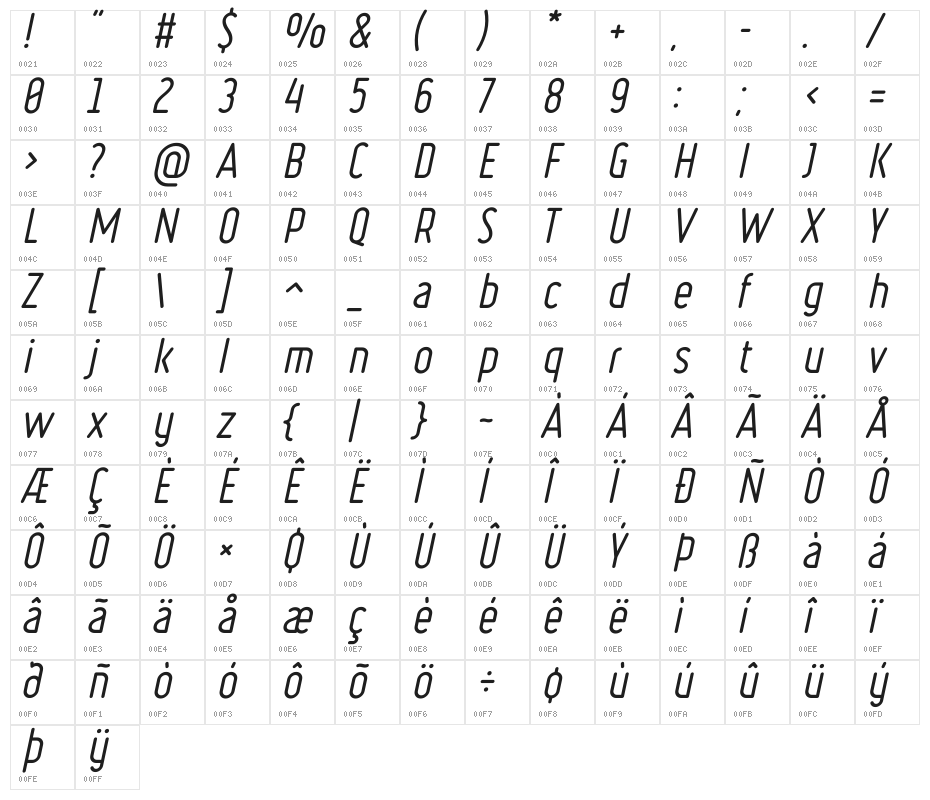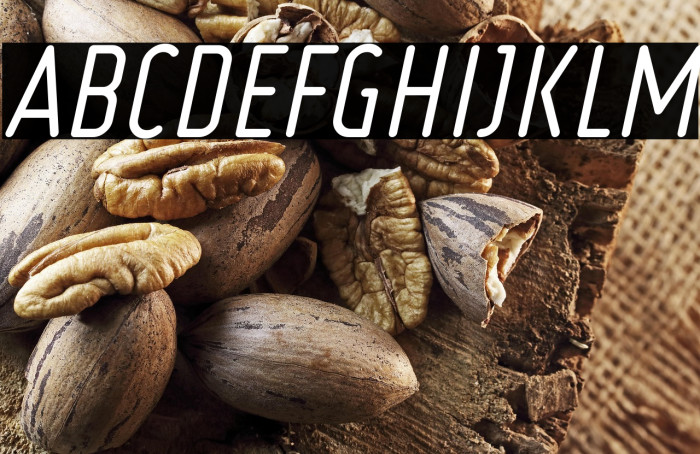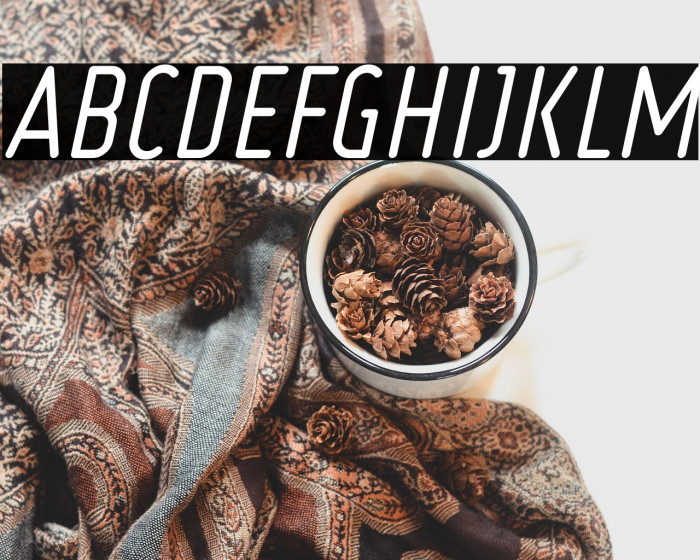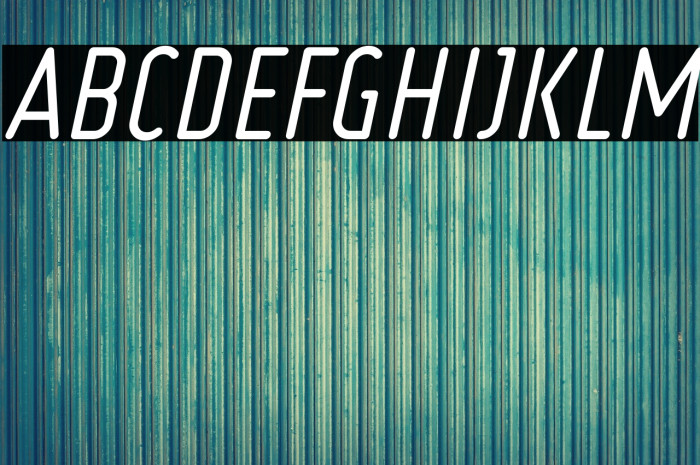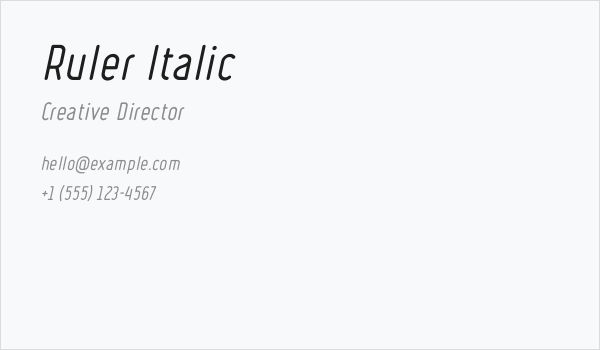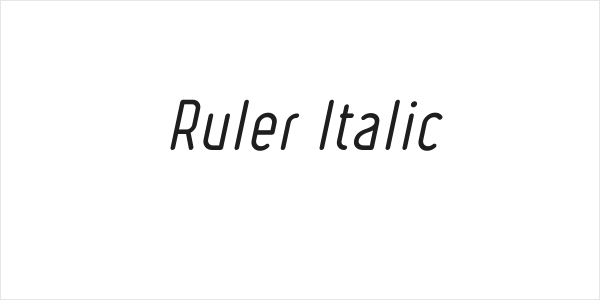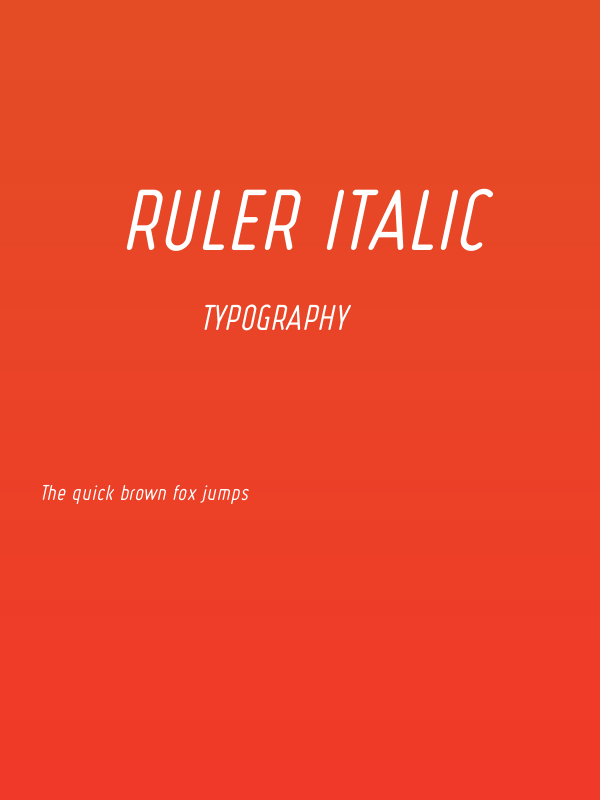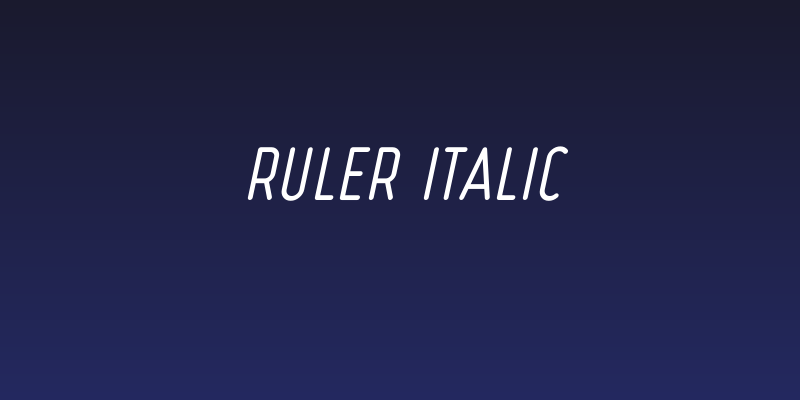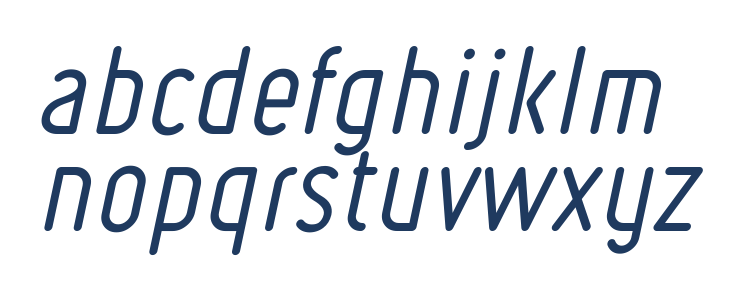
Ruler Italic Font
Ruler Italic Description
This font features a sleek, italicized design with a modern and streamlined appearance. The characters are slightly elongated, giving them a dynamic and fluid motion. The strokes are consistent in thickness, contributing to a clean and uniform look. The font maintains a sense of elegance and sophistication, making it suitable for contemporary design projects. The numerals and special characters are designed with the same attention to detail, ensuring a cohesive appearance across all elements.
| Use Case | Headlines, Logos, Advertising |
| Proposed Projects | Ideal for branding, advertising, and editorial design where a modern and sophisticated look is desired. |